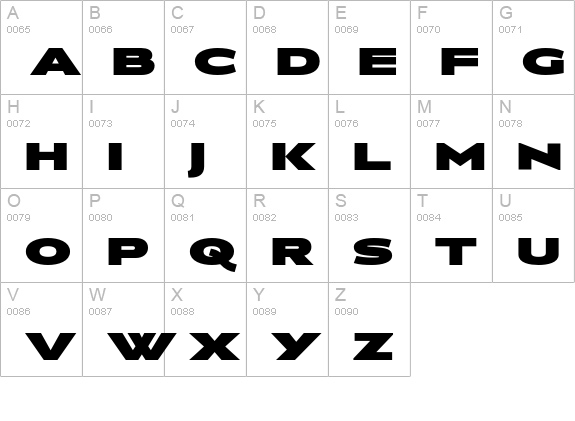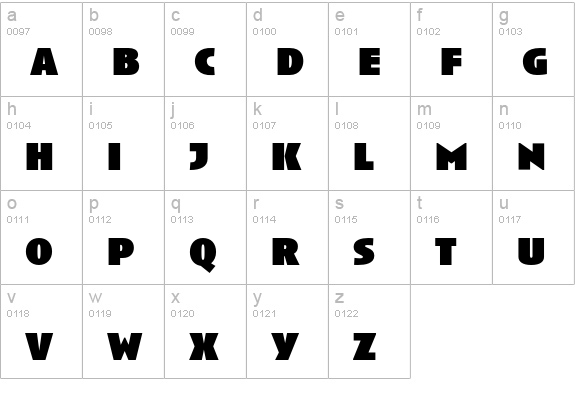
Anisette-Black Font Details
Anisette-Black is a maximum-weight, dramatic variant in the Anisette typeface family \xE2\x80\x94 well suited to maximum-impact headlines, posters, and packaging.
Anisette-Black font is a striking and modern typeface that exudes elegance and sophistication. With its bold and sleek design, this font is perfect for adding a touch of luxury to any project. The sharp, clean lines and distinct letterforms make Anisette-Black font a versatile choice for a wide range of design applications. What sets Anisette-Black font apart is its unique blend of classic and contemporary elements, making it a standout choice for those looking to make a bold statement with their typography. Its commanding presence on the page demands attention and leaves a lasting impression on the viewer. Whether you're designing a logo, poster, website, or any other creative project, Anisette-Black font is sure to elevate your design to the next level. And the best part? It's completely free to download at FontsMarket.com, making it accessible to designers of all levels. Don't miss out on the opportunity to add this stunning font to your collection today and take your designs to new heights.